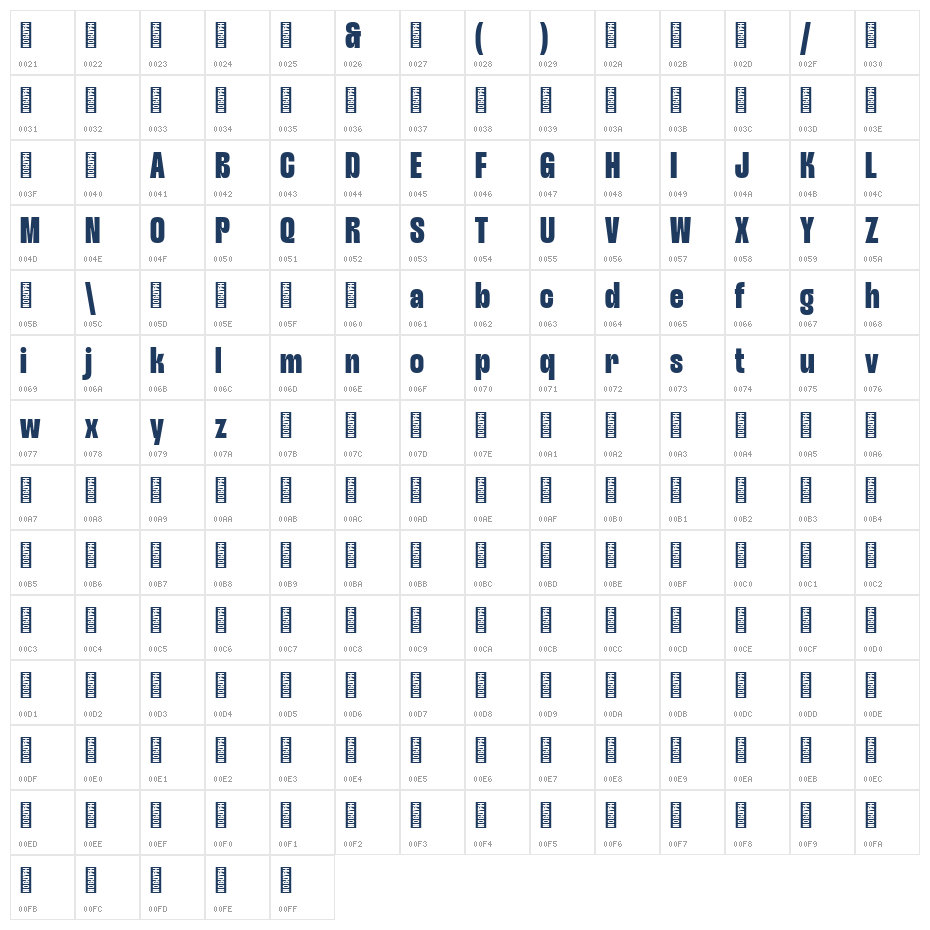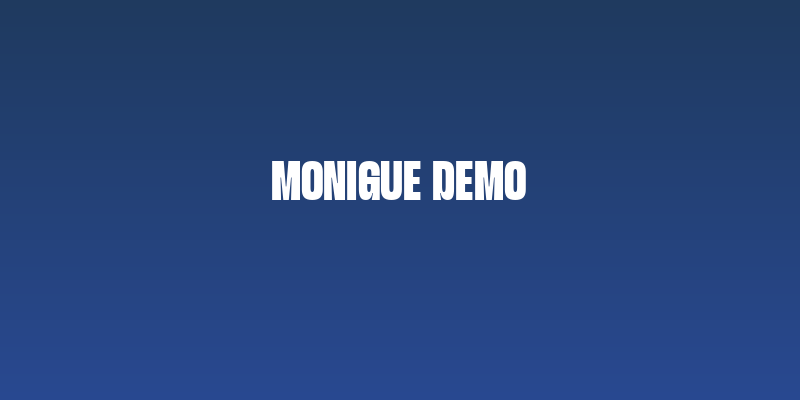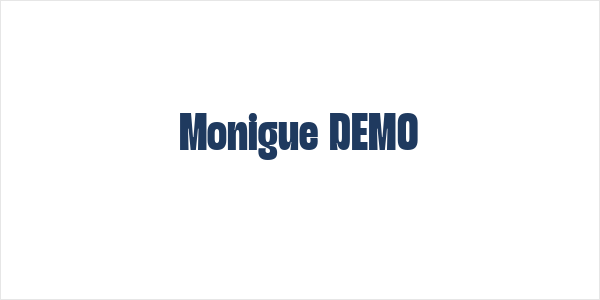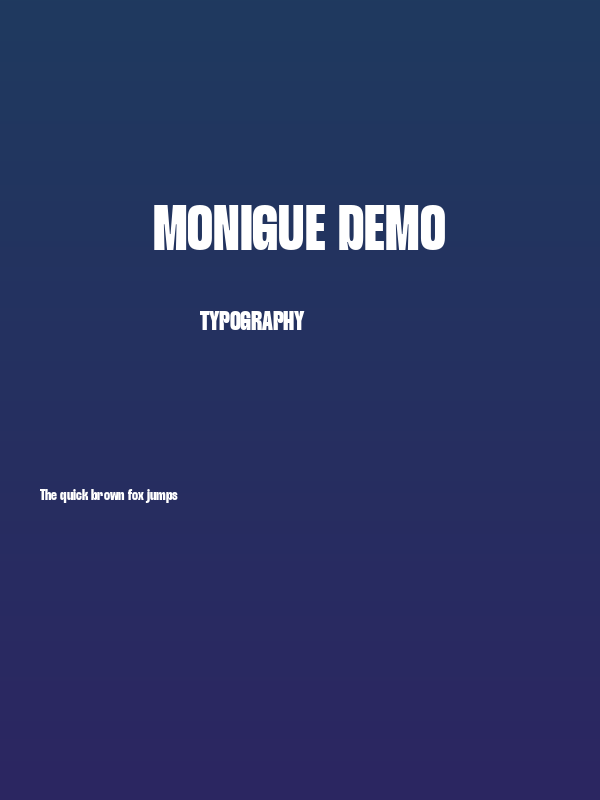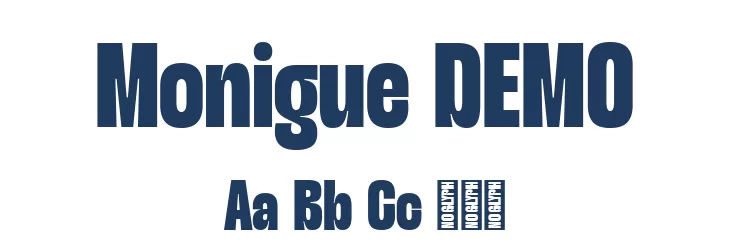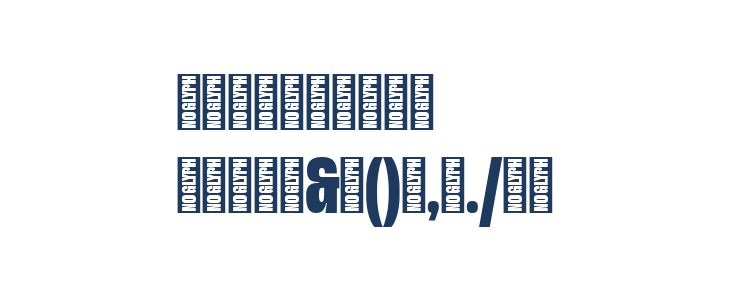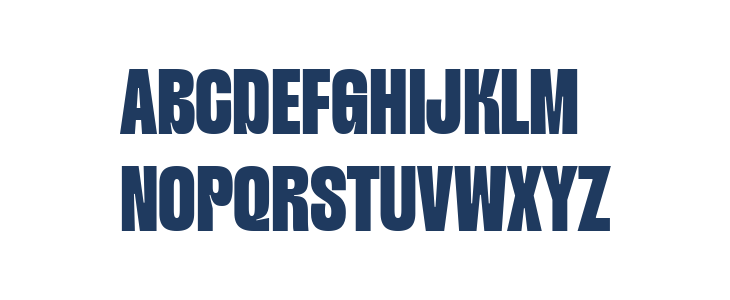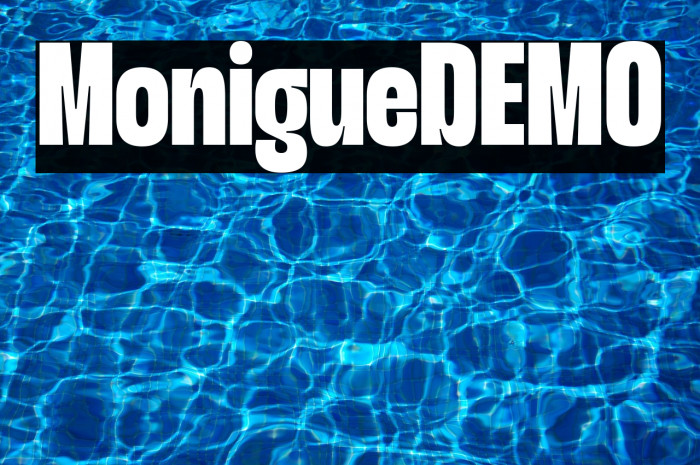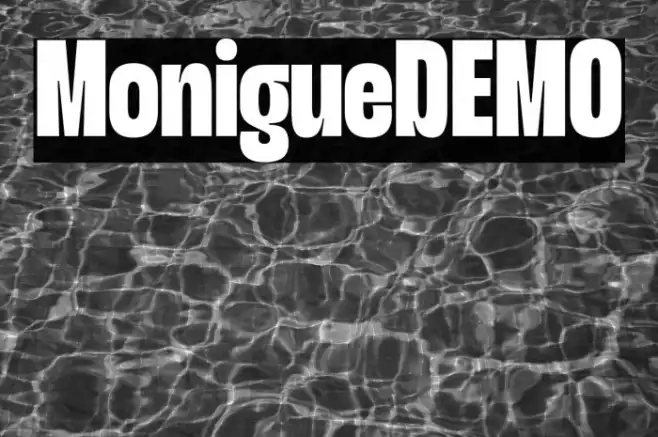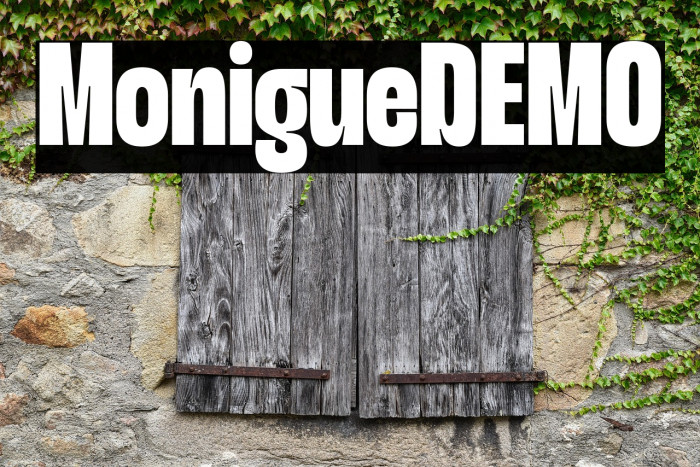
Monigue DEMO Font
Monigue DEMO Description
Bold, blocky, sans-serif font with uniform stroke width and rounded edges.
| Overall Style | Modern, Geometric |